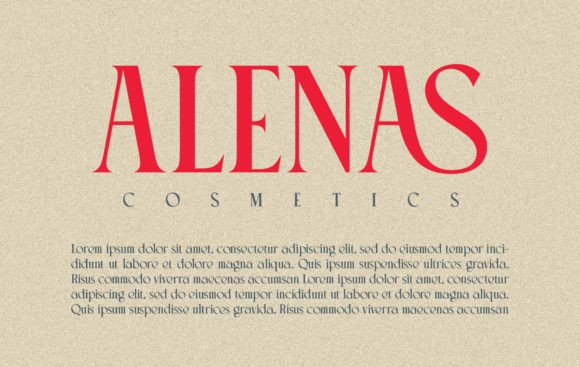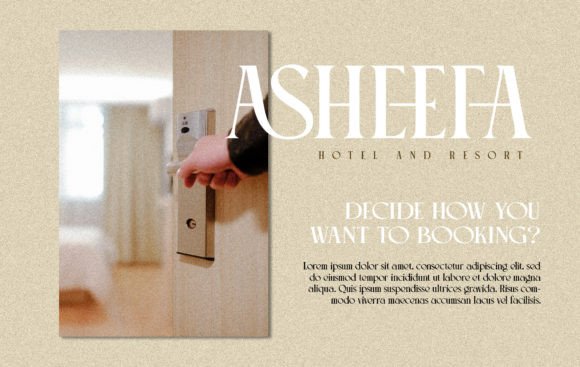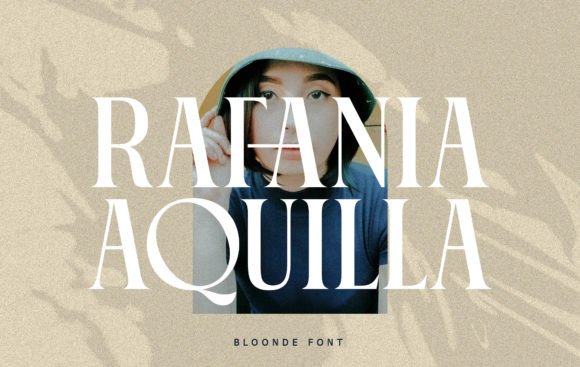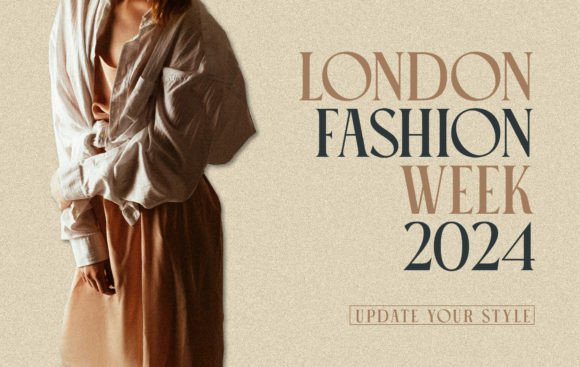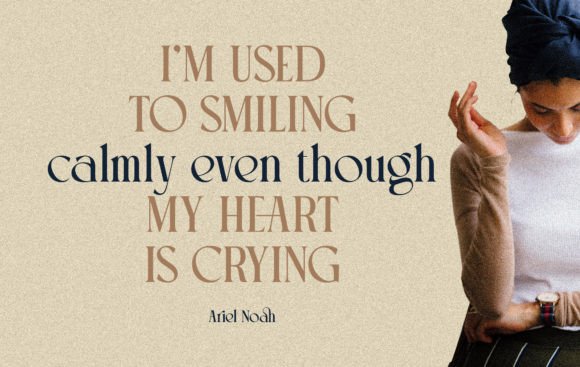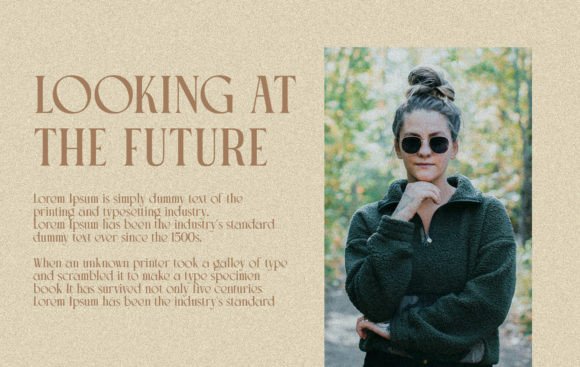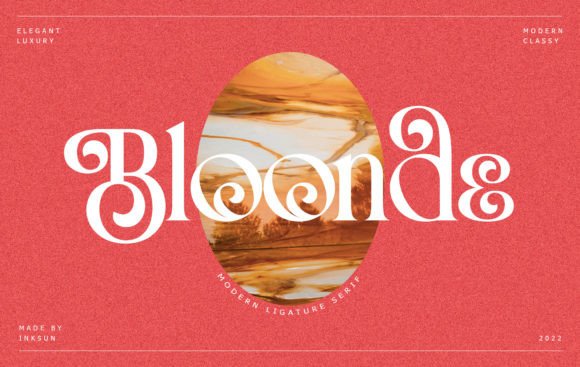
Bloonde Font: Elevate Your Designs with Modern Elegance
In the world of typography, a well-crafted font can make all the difference in transforming a design from ordinary to extraordinary. Introducing Bloonde, a special modern style font that is meticulously designed with beautiful curves, alternate characters, and ties to add a touch of sophistication to your work. Whether you’re a designer, crafter, or simply someone who appreciates the art of typography, Bloonde is the perfect addition to your font collection.
The Beauty of Bloonde Font
Bloonde is more than just a font – it’s a design statement. With its sleek and modern style, this font is perfect for creating stunning branding designs, logos, greeting cards, title packaging, and other visual materials that demand attention. The font’s beautiful curves and lines are carefully crafted to create a sense of fluidity and elegance, making it ideal for designs that require a touch of sophistication.
What Sets Bloonde Apart
So, what makes Bloonde stand out from the rest? Here are a few features that make this font truly special:
- Alternate Characters: Bloonde comes with a range of alternate characters that allow you to add some extra flair to your designs. With multiple options to choose from, you can create unique and eye-catching text that sets your work apart.
- Ties: The font’s ties are carefully designed to add a touch of elegance to your designs. Whether you’re creating a logo, greeting card, or title packaging, the ties in Bloonde can help you create a cohesive and sophisticated look.
- Pinpoint Accuracy: Bloonde is crafted with pinpoint accuracy to ensure that every curve, line, and detail is perfectly executed. This attention to detail makes the font perfect for designs that require precision and accuracy.
Bloonde is designed with designers and crafters in mind. Whether you’re creating:
- Branding Designs: Use Bloonde to create stunning logos, business cards, and letterheads that reflect your brand’s personality and style.
- Greeting Cards: Add a touch of elegance to your greeting cards with Bloonde’s beautiful curves and lines.
- Title Packaging: Create eye-catching title packaging with Bloonde’s modern style and elegant curves.
- Other Designs: From social media graphics to website headers, Bloonde can elevate any design that requires a touch of sophistication.
In conclusion, Bloonde is a special modern style font that is designed to elevate your designs and add a touch of sophistication to your work. With its beautiful curves, alternate characters, and ties, Bloonde is perfect for designers, crafters, and anyone who appreciates the art of typography. So, what are you waiting for? Get your hands on Bloonde today and take your designs to new heights!